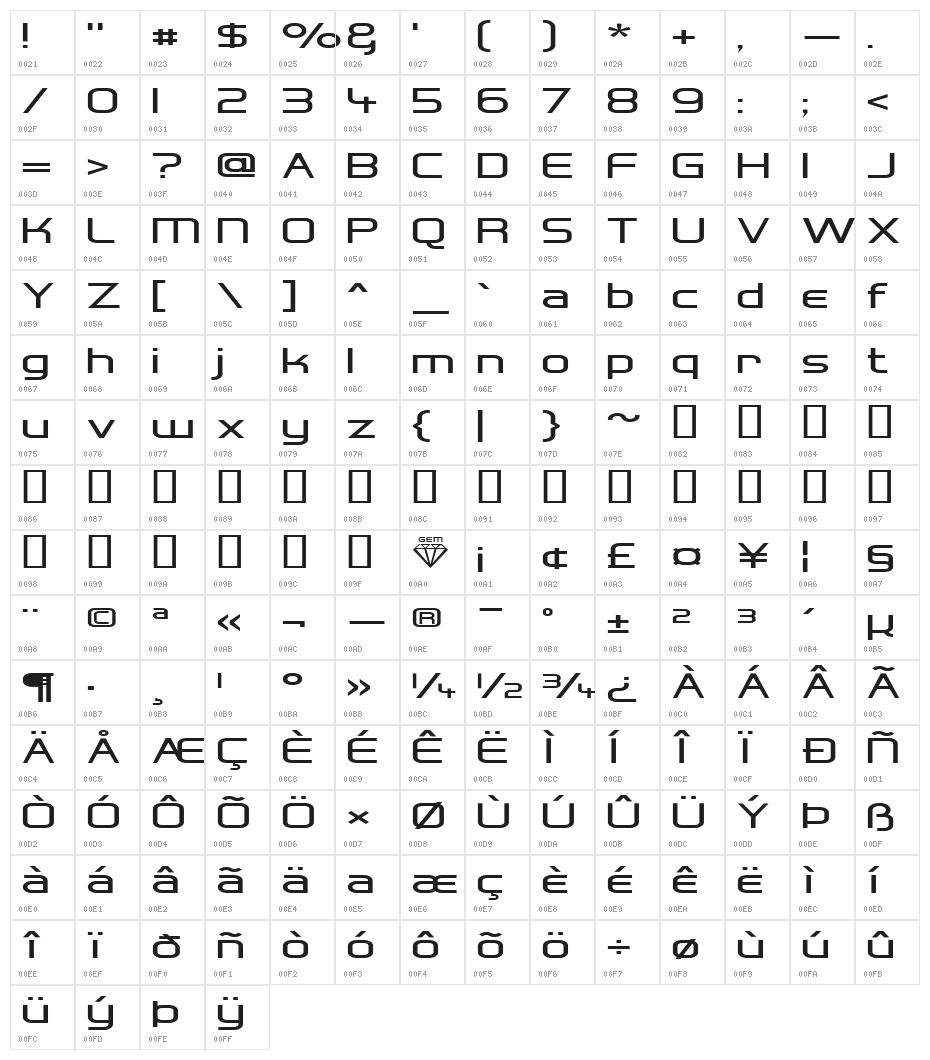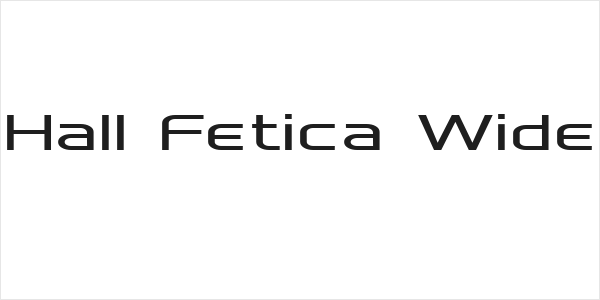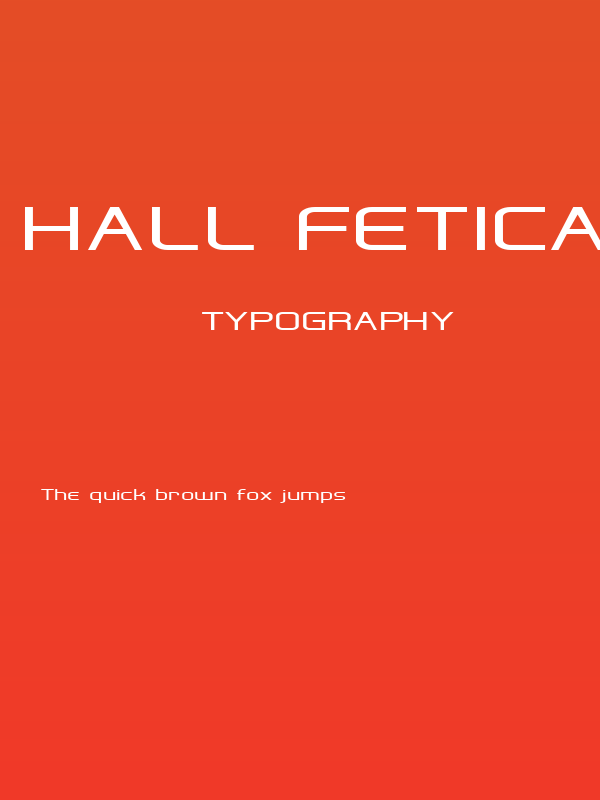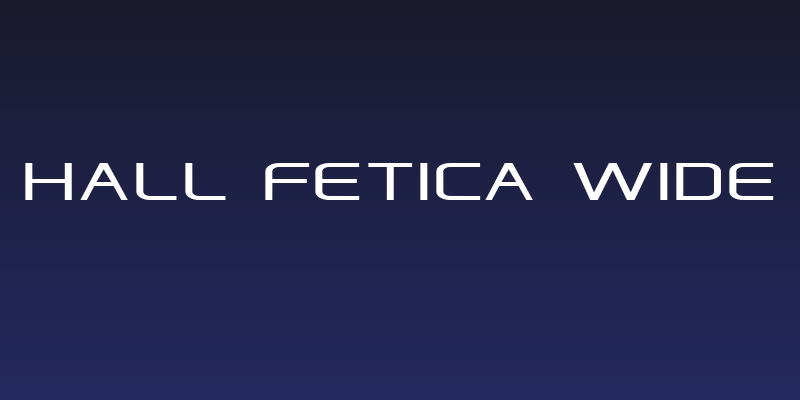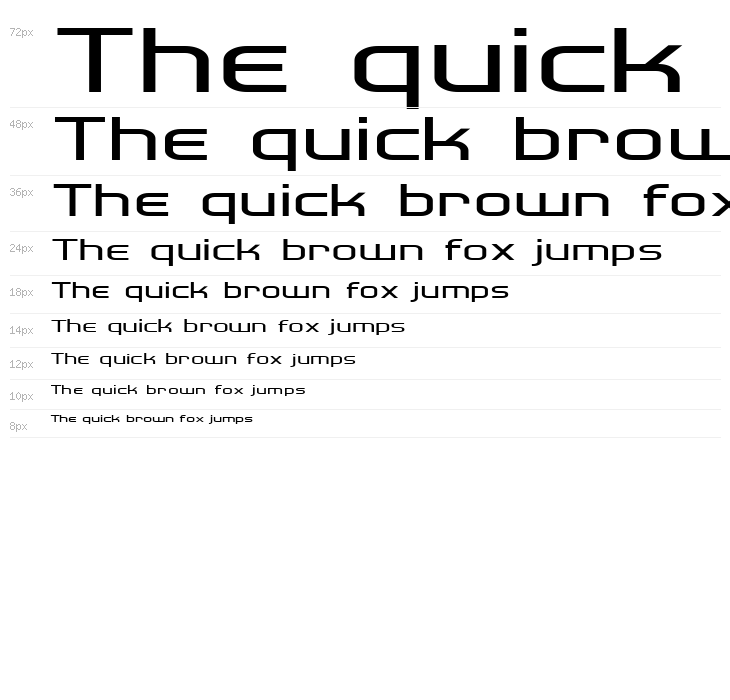
Hall Fetica Wide Font
Hall Fetica Wide Description
This font features a modern and sleek design with a geometric structure. The characters are wide and evenly spaced, giving a sense of openness and clarity. The uppercase letters have a consistent height and width, while the lowercase letters maintain a uniform style that complements the uppercase. The numerals are distinct and easy to read, with a contemporary flair. Special characters are designed to match the overall aesthetic, providing a cohesive look across all glyphs. This font is ideal for projects that require a clean and futuristic appearance.
Use CaseHeadlines, Logos, Branding
Proposed ProjectsIdeal for technology branding, modern advertising, and futuristic design projects.